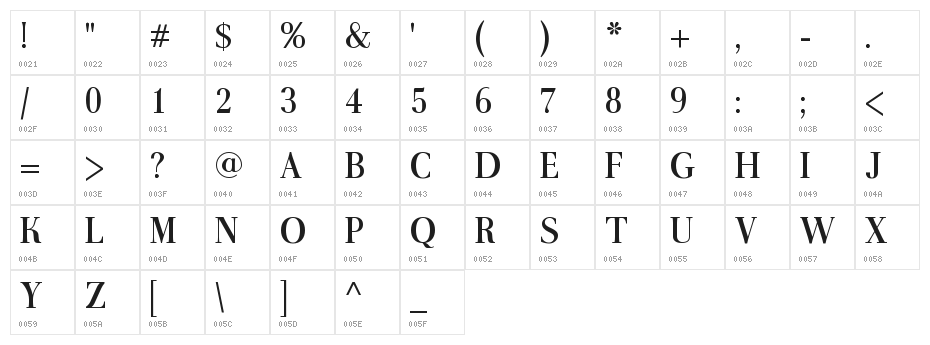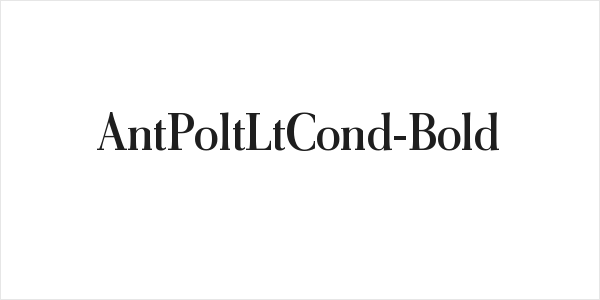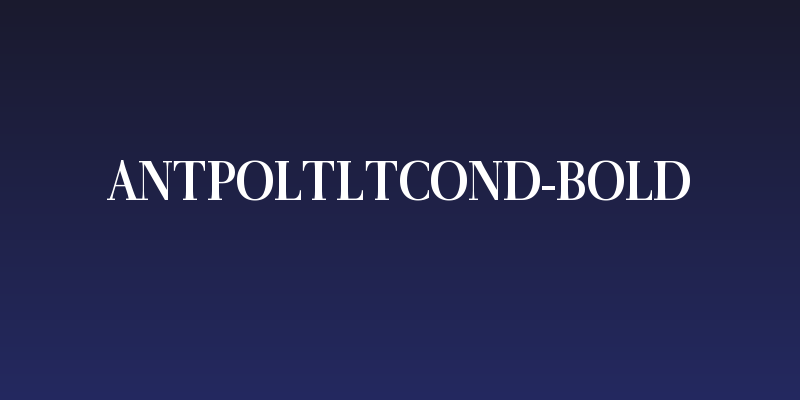
AntPoltLtCond-Bold Font
AntPoltLtCond-Bold Description
This font exhibits a classic serif style with a bold and confident presence. The characters are elegantly condensed, offering a sophisticated look that balances tradition with modernity. The uppercase letters are tall and commanding, while the lowercase letters maintain a harmonious flow. The numerals are clear and distinct, ensuring readability. Special characters are designed with attention to detail, complementing the overall aesthetic. The font's high contrast in stroke thickness adds to its striking appearance, making it suitable for impactful designs.
| Proposed Projects | Ideal for editorial design, book covers, branding, and elegant invitations. |